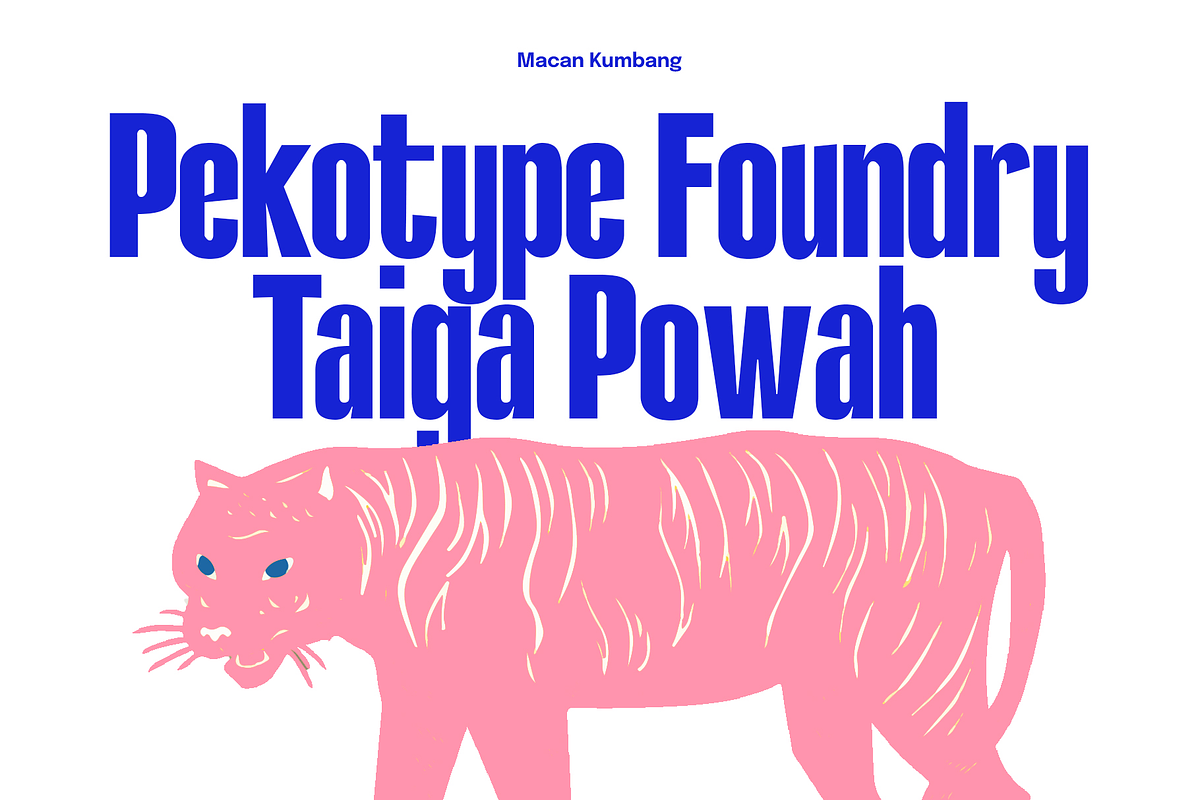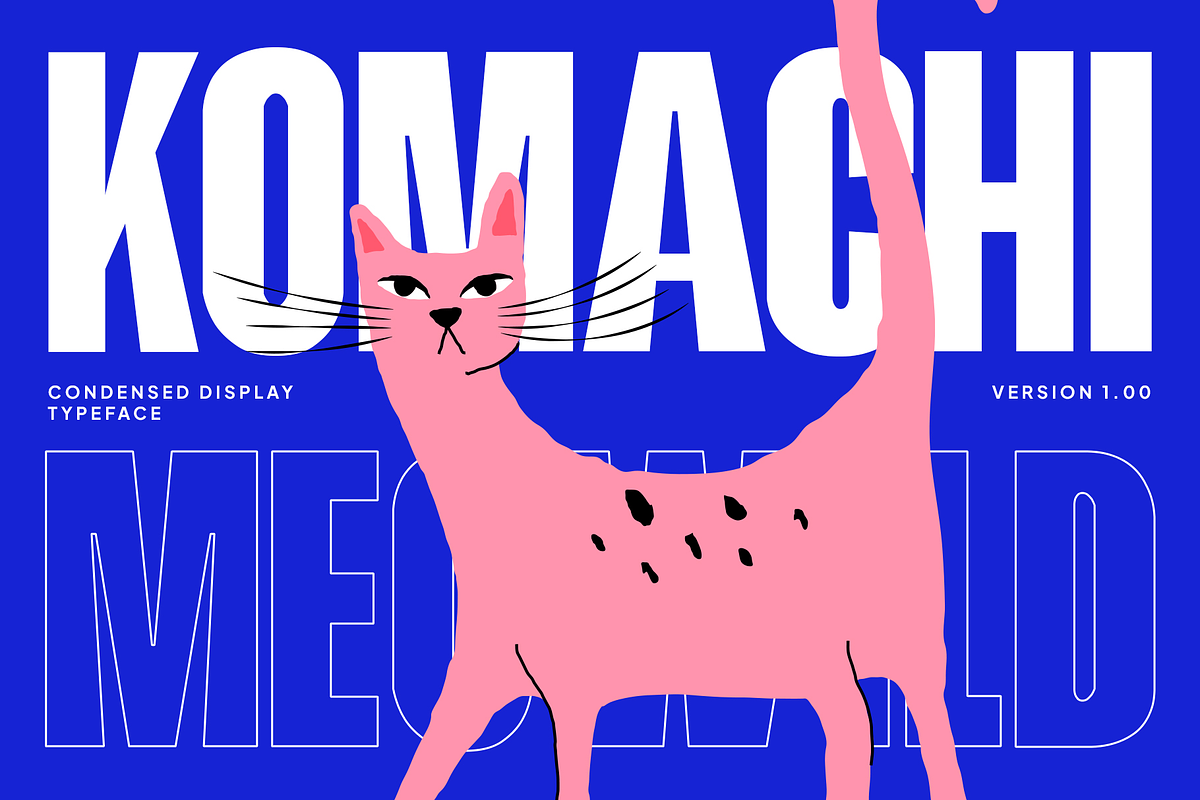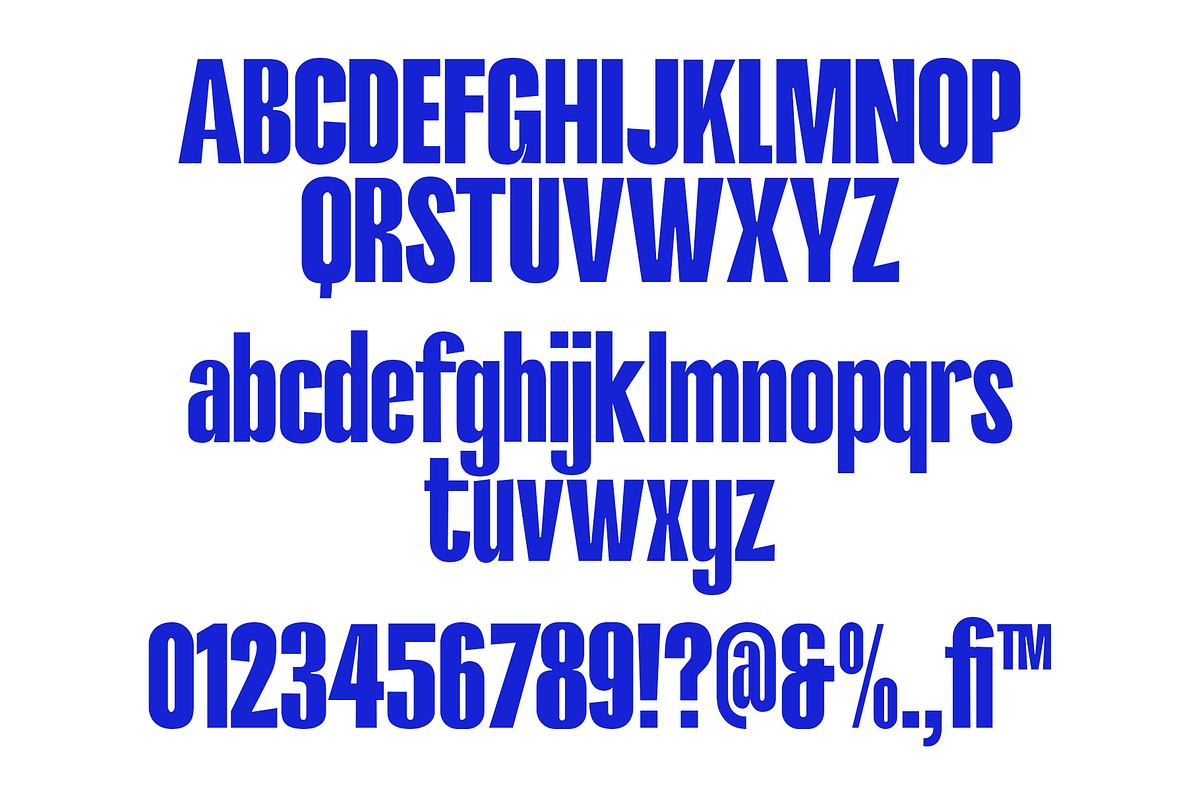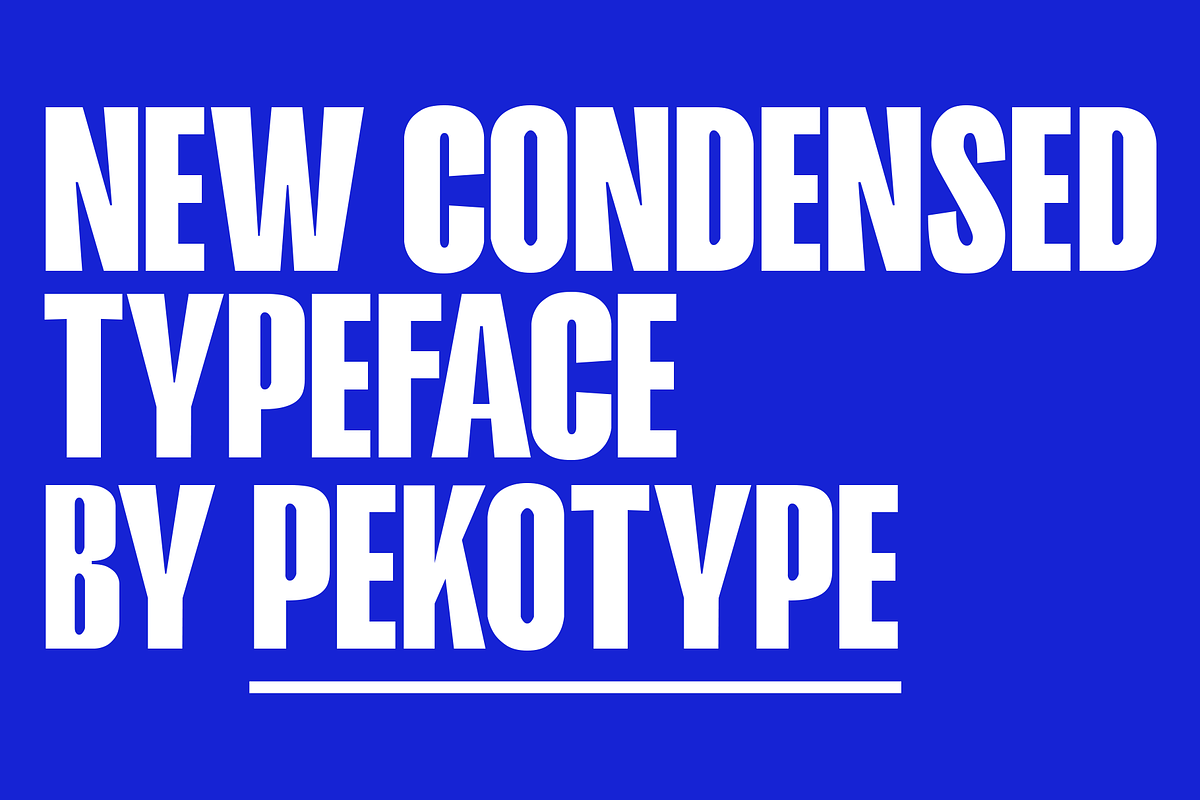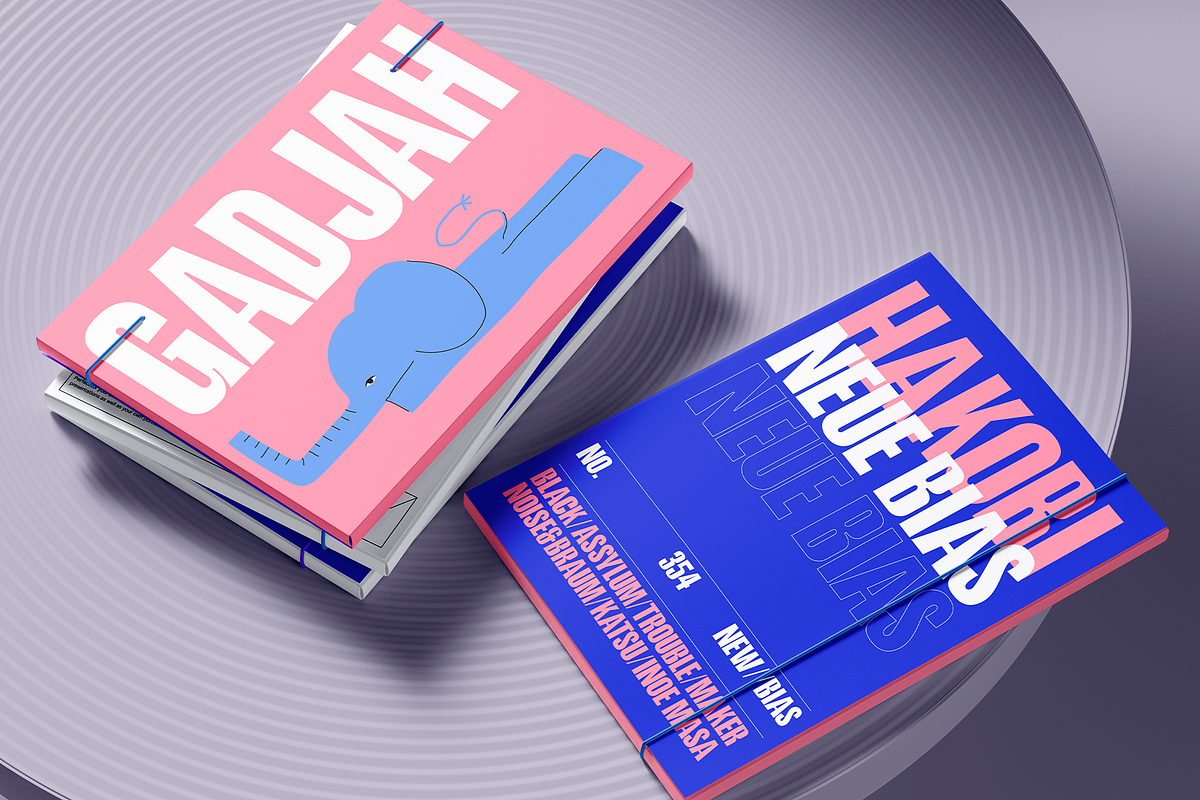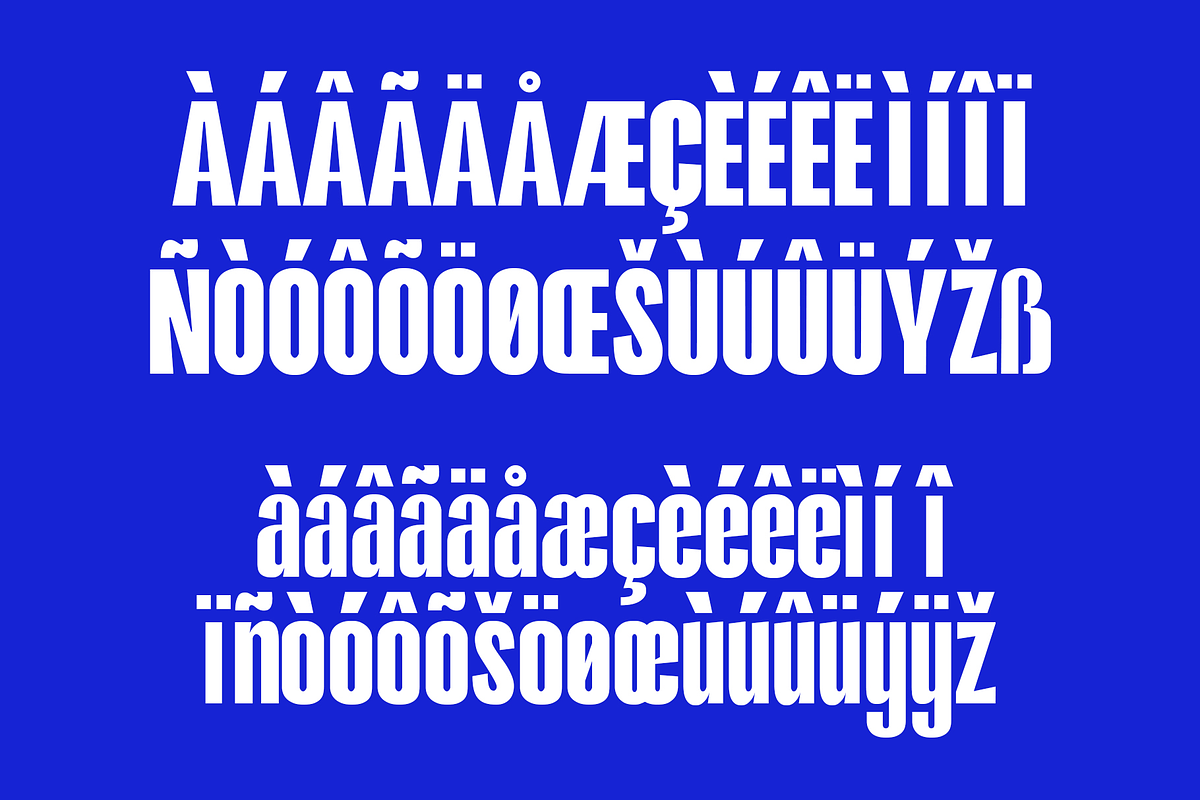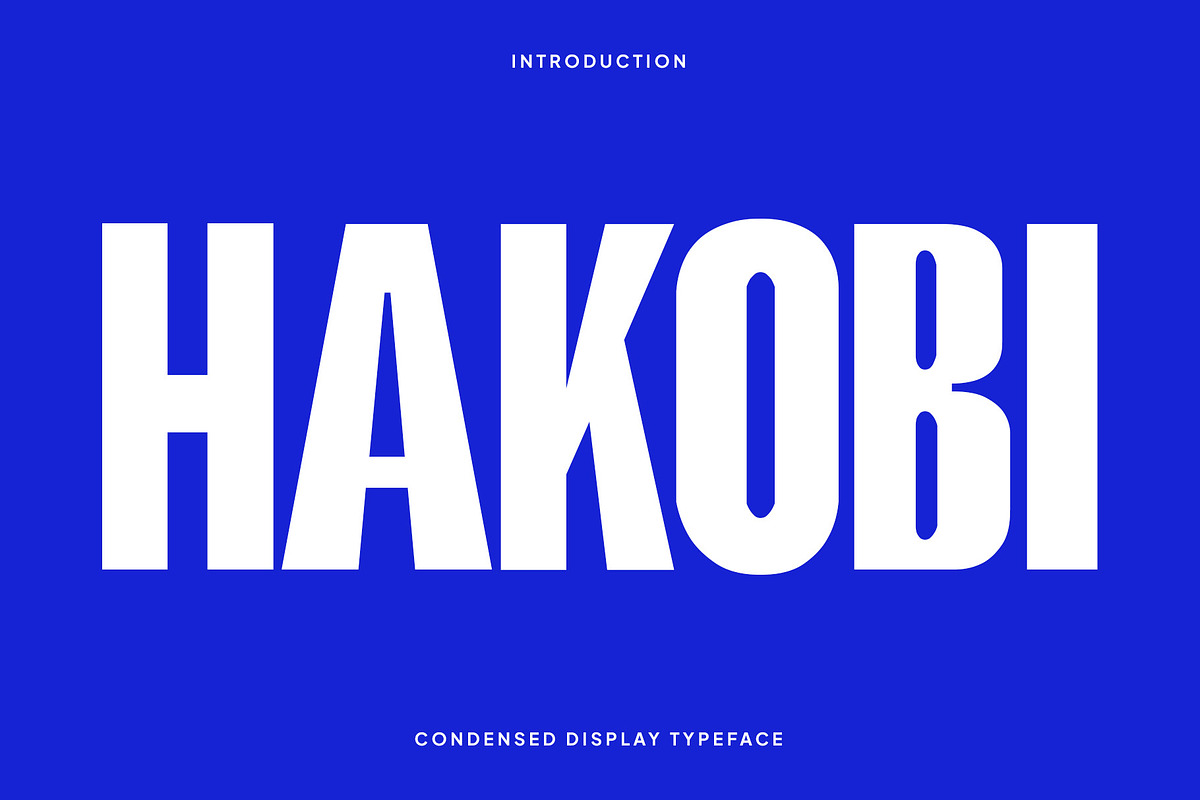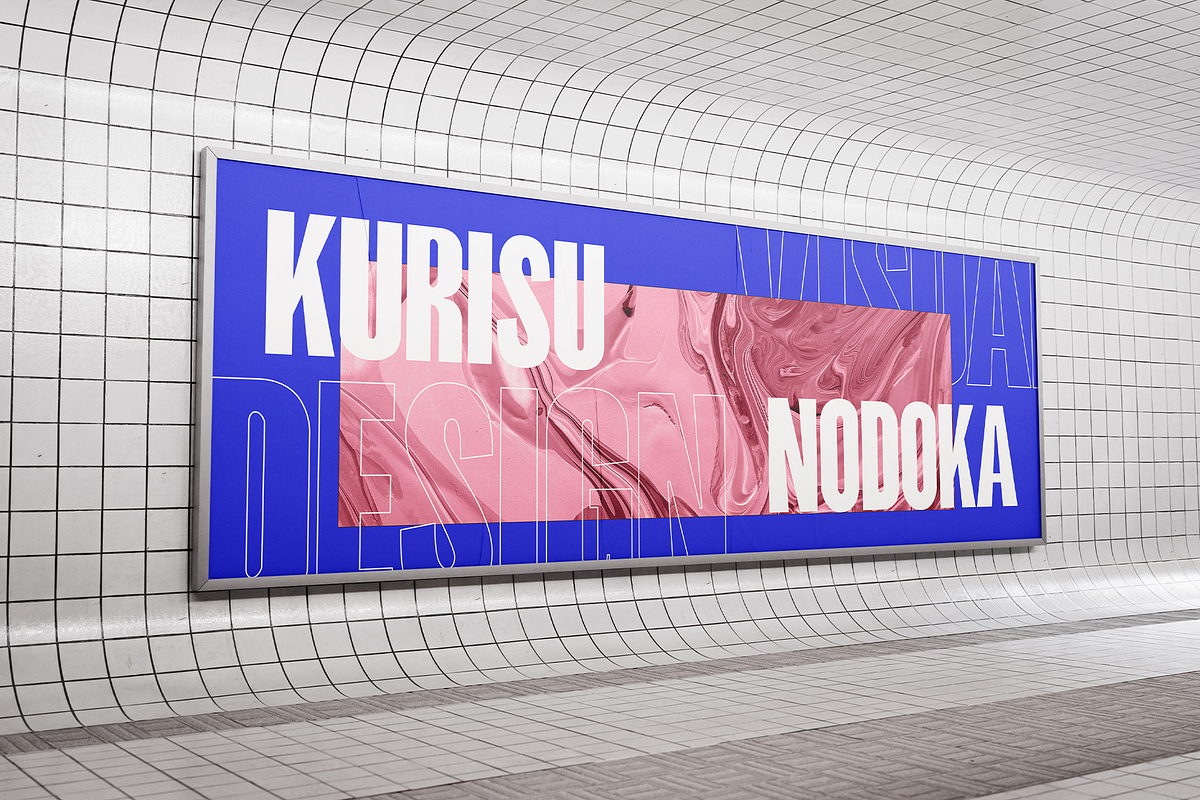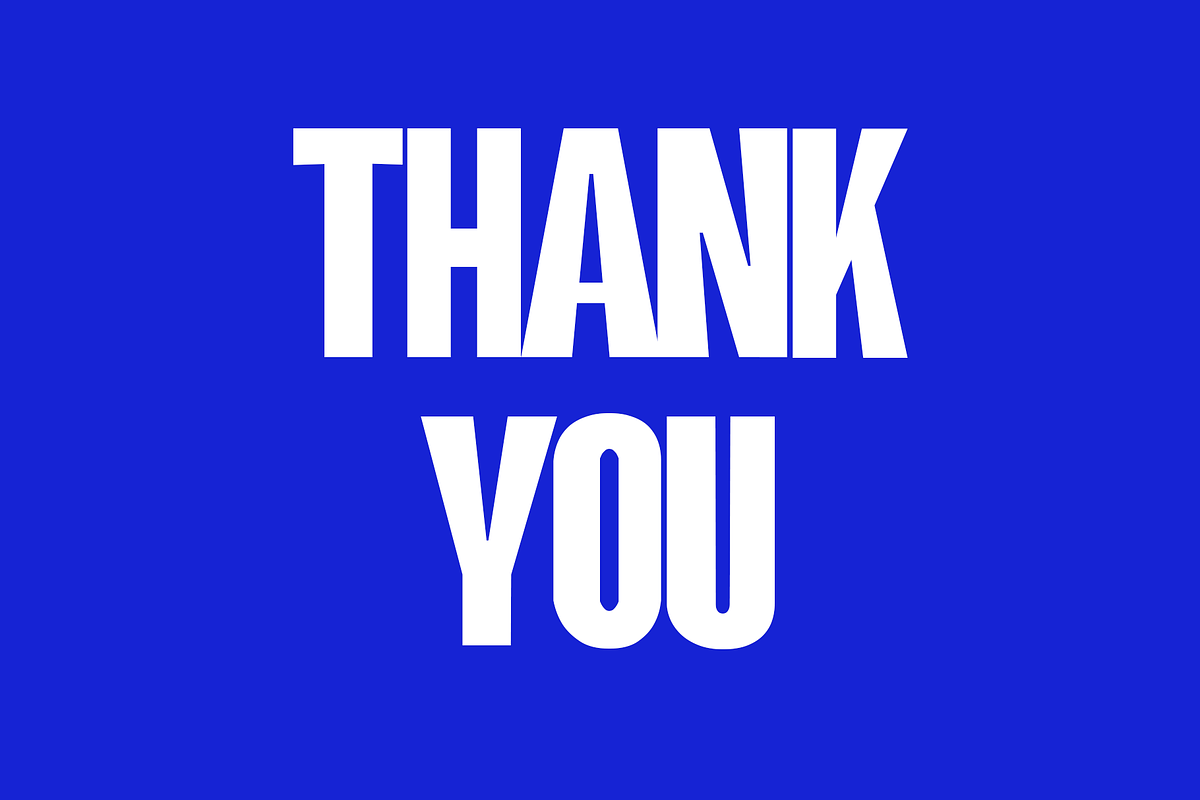
Hakobi - Condensed Sans
HAKOBI is a captivating display typeface with a condensed design and bold style. This typeface combines striking compactness with a strong emphasis, creating a visually impressive and eye-catching appearance. With its bold design, Hakobi conveys a powerful and confident message to its audience. Hakobi is the perfect choice for projects that require text that stands out and commands attention, such as posters, movie titles, graphic designs aiming for a dramatic effect, or any display where you want to make a bold and memorable statement